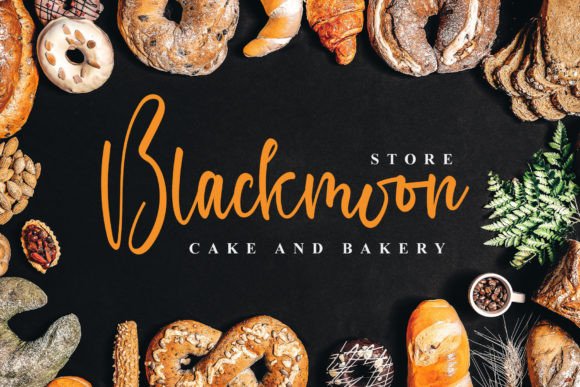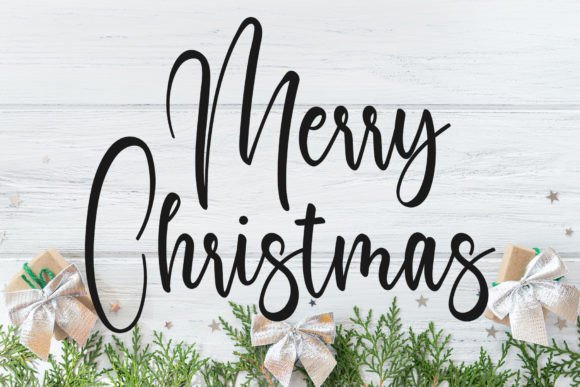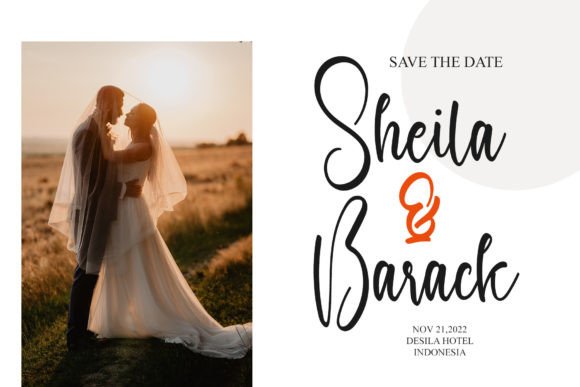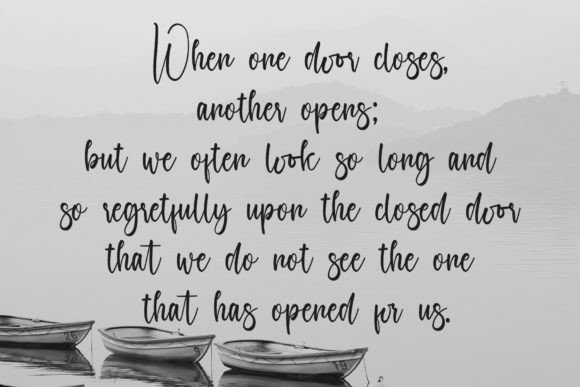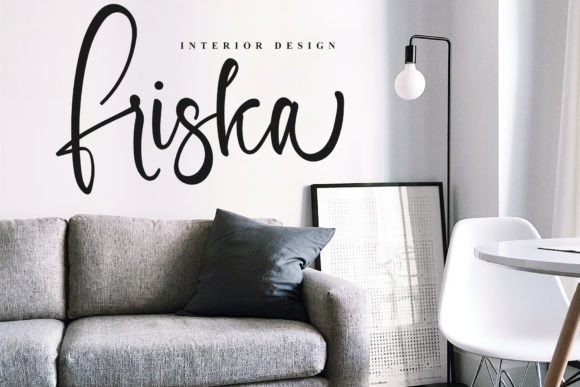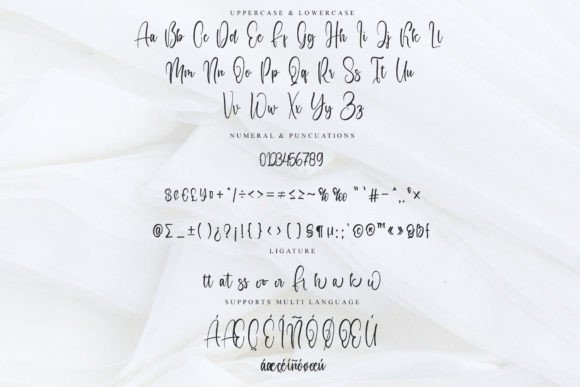
Introducing Framework Font: Elevate Your Designs with Timeless Elegance
In the world of typography, a font can make or break a design. For designers and crafters seeking to add a touch of sophistication and elegance to their projects, Framework Font is an exceptional choice. This stylish handwritten font boasts a contemporary atmosphere and impeccable form, drawing inspiration from timeless classic calligraphy.
The Essence of Framework Font
Framework Font is a meticulously crafted typeface that embodies the perfect balance of style and versatility. Its design is rooted in the principles of classic calligraphy, yet it exudes a modern flair that sets it apart from traditional fonts. With its balanced and varied characters, Framework Font is poised to enhance the beauty of your projects, whether you’re working on branding, packaging, or digital media.
Key Features of Framework Font
- Handwritten with a Personal Touch: Framework Font is a handwritten typeface that captures the essence of personal and human connection, making it ideal for designs that require a touch of warmth and personality.
- Contemporary yet Classic: This font strikes the perfect balance between modern design and timeless elegance, making it versatile for a wide range of projects.
- Impeccable Form: Each character in Framework Font is carefully designed to ensure clarity and readability, without compromising on style.
- Balanced and Varied: The font features a range of characters that offer variation and balance, allowing for dynamic and engaging text compositions.
Why Choose Framework Font?
For designers and crafters, the choice of font can significantly impact the outcome of a project. Here are a few reasons why Framework Font stands out:
- Enhances Readability and Aesthetics: Framework Font is designed to be both readable and visually appealing, making it perfect for body text and headings.
- Versatility Across Projects: Whether you’re working on a logo, a website, a packaging design, or a craft project, Framework Font can adapt to your needs, adding a touch of elegance and sophistication.
- Inspired by Timeless Classics: By drawing inspiration from classic calligraphy, Framework Font brings a sense of tradition and timelessness to your designs, setting them apart from more generic or modern fonts.
Using Framework Font in Your Projects
Integrating Framework Font into your designs is straightforward. Here are some tips for making the most of this beautiful typeface:
- Pair with Complementary Fonts: For maximum impact, consider pairing Framework Font with simpler sans-serif fonts for contrast and visual interest.
- Experiment with Sizes and Weights: While Framework Font is elegant in its standard form, experimenting with different sizes and weights can add depth and hierarchy to your designs.
- Use for Headings and Body Text: Thanks to its readability and style, Framework Font can be used effectively for both headings and body text, offering a cohesive look across your project.
Framework Font is a stylish and versatile typeface that brings a touch of timeless elegance to any design project. Its balanced and varied characters, impeccable form, and contemporary atmosphere make it an excellent choice for designers and crafters looking to elevate their work. Whether you’re aiming to create a sophisticated brand identity, an engaging digital platform, or a beautiful craft project, Framework Font is sure to enhance the beauty and impact of your designs.
Discover the potential of Framework Font and let it be the key to unlocking a new level of sophistication and style in your creative endeavors.